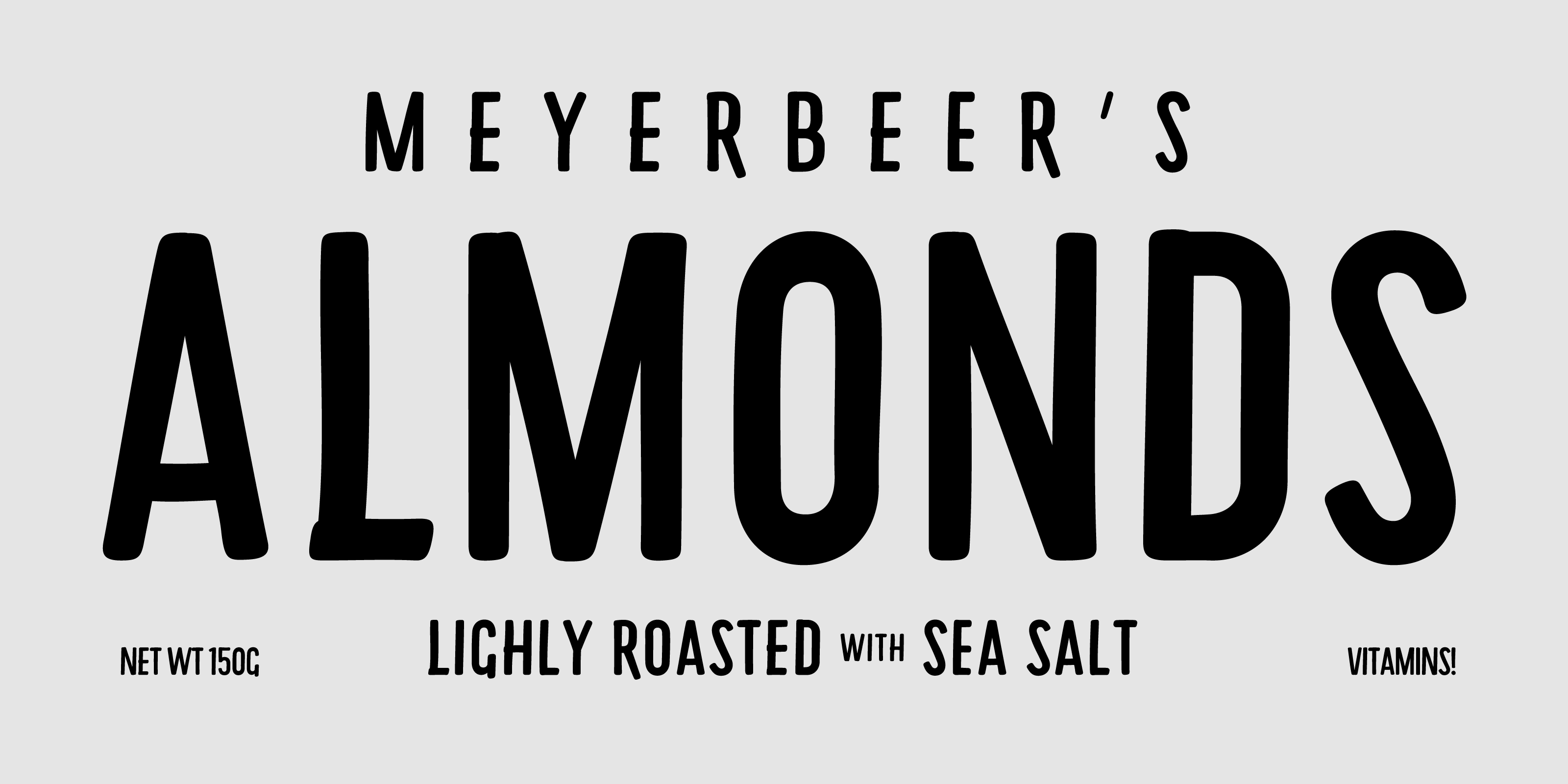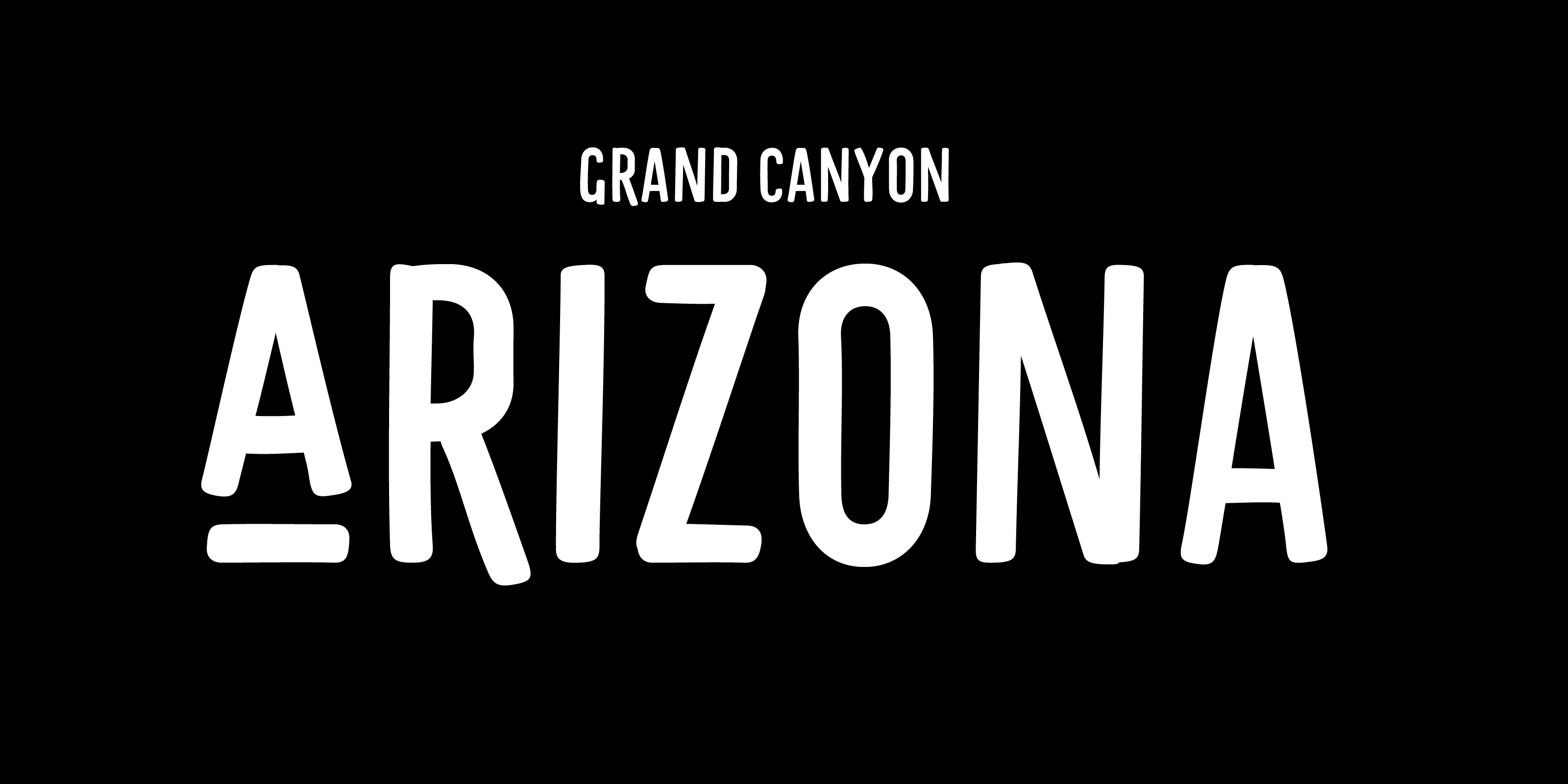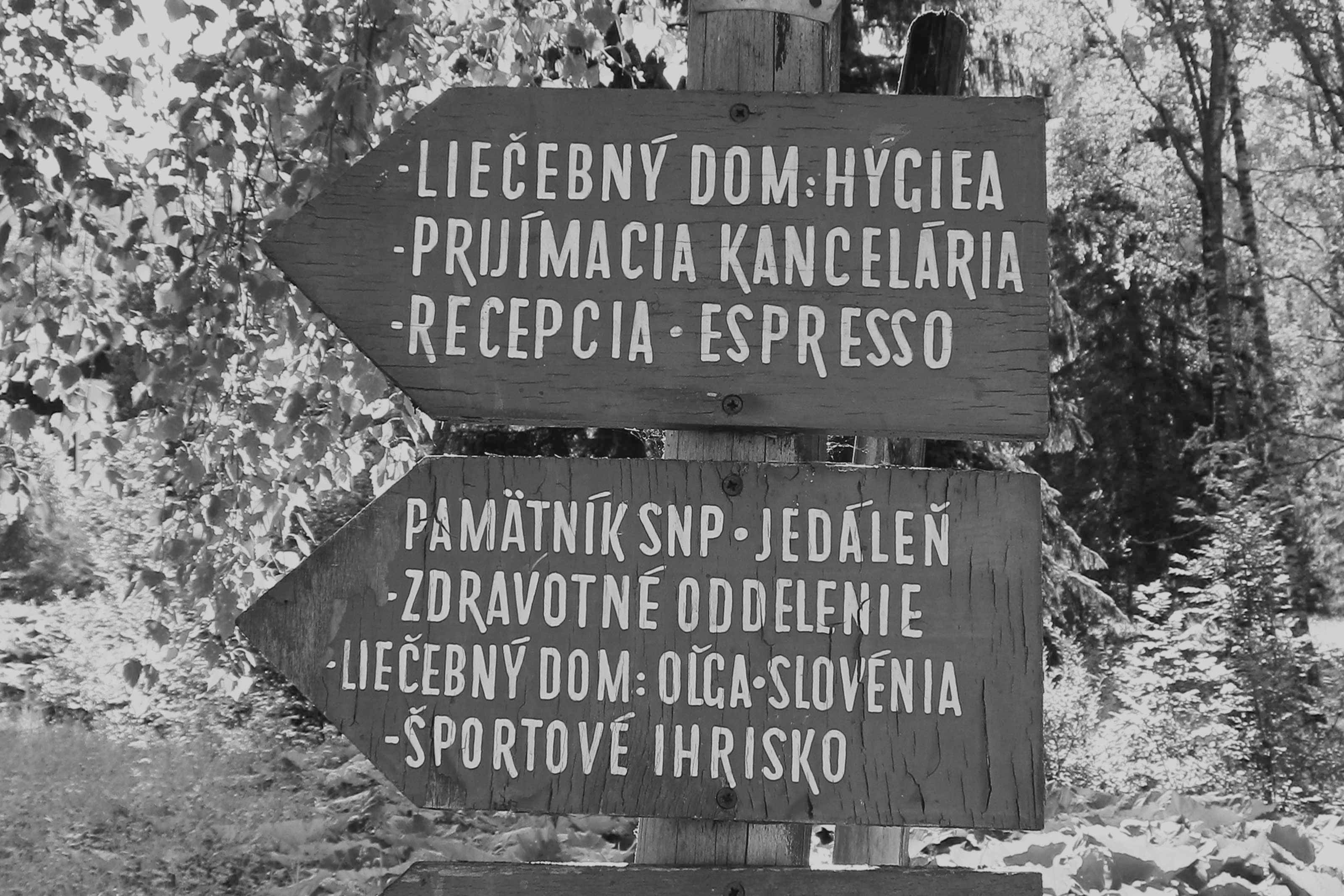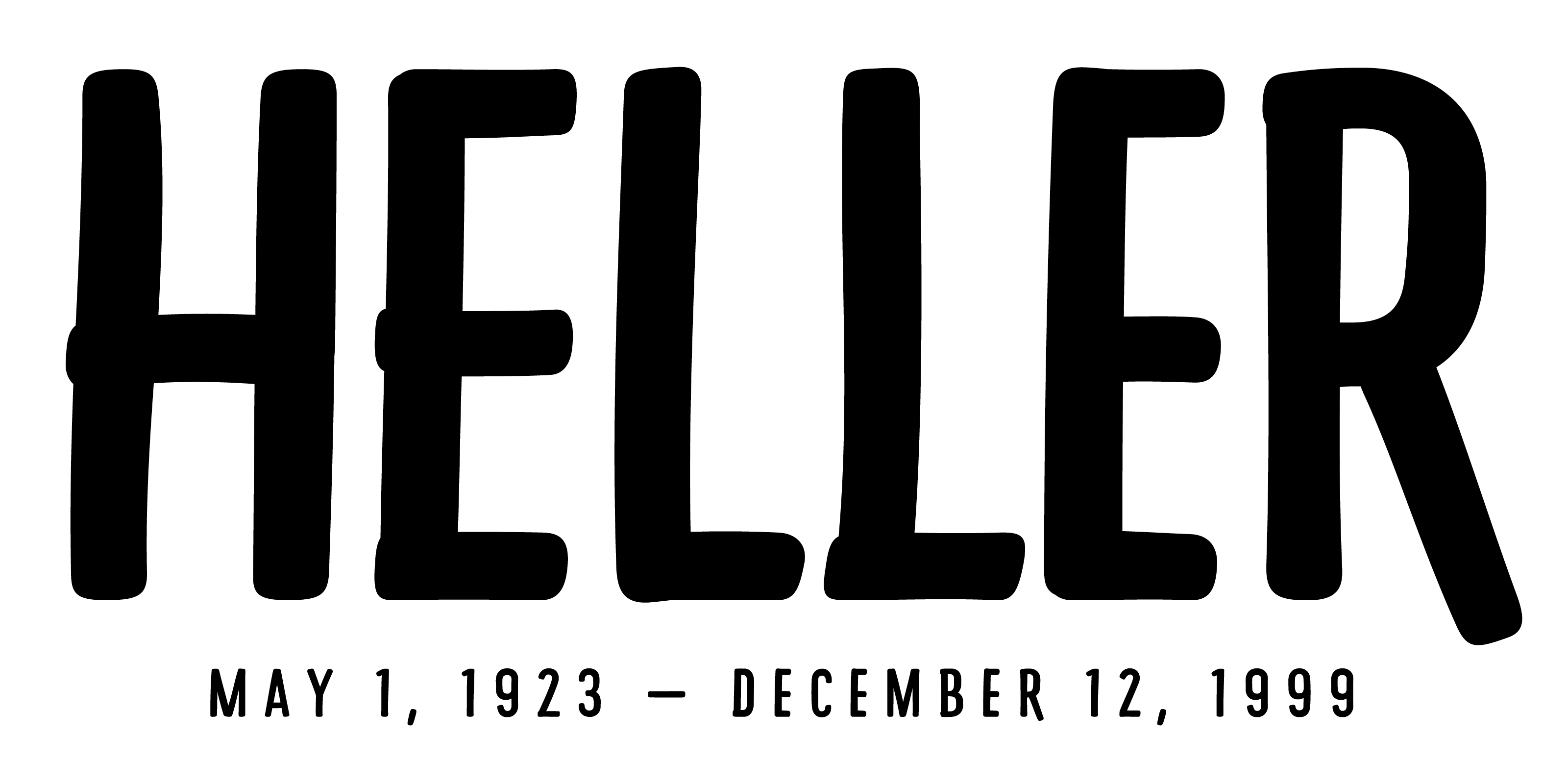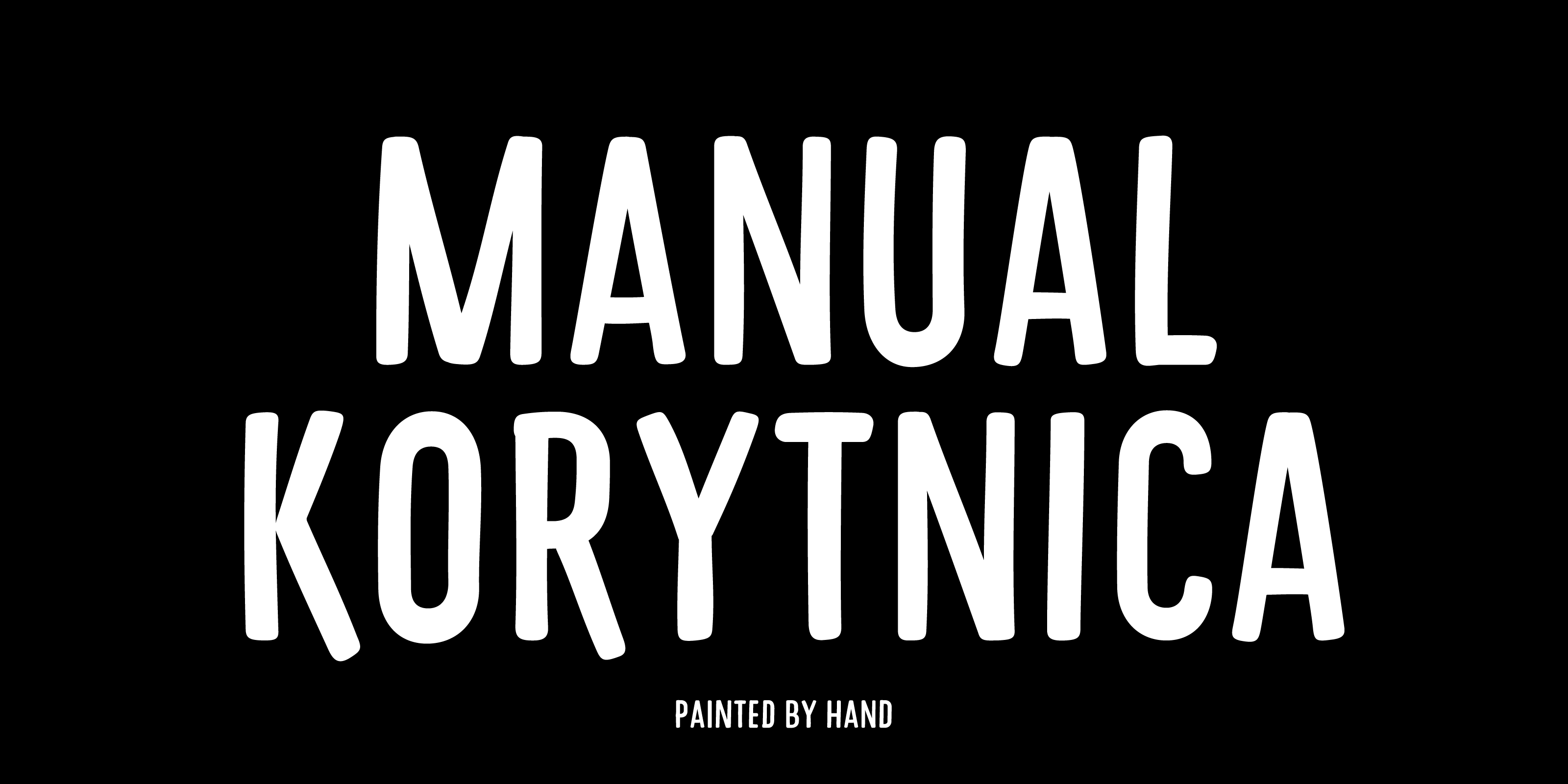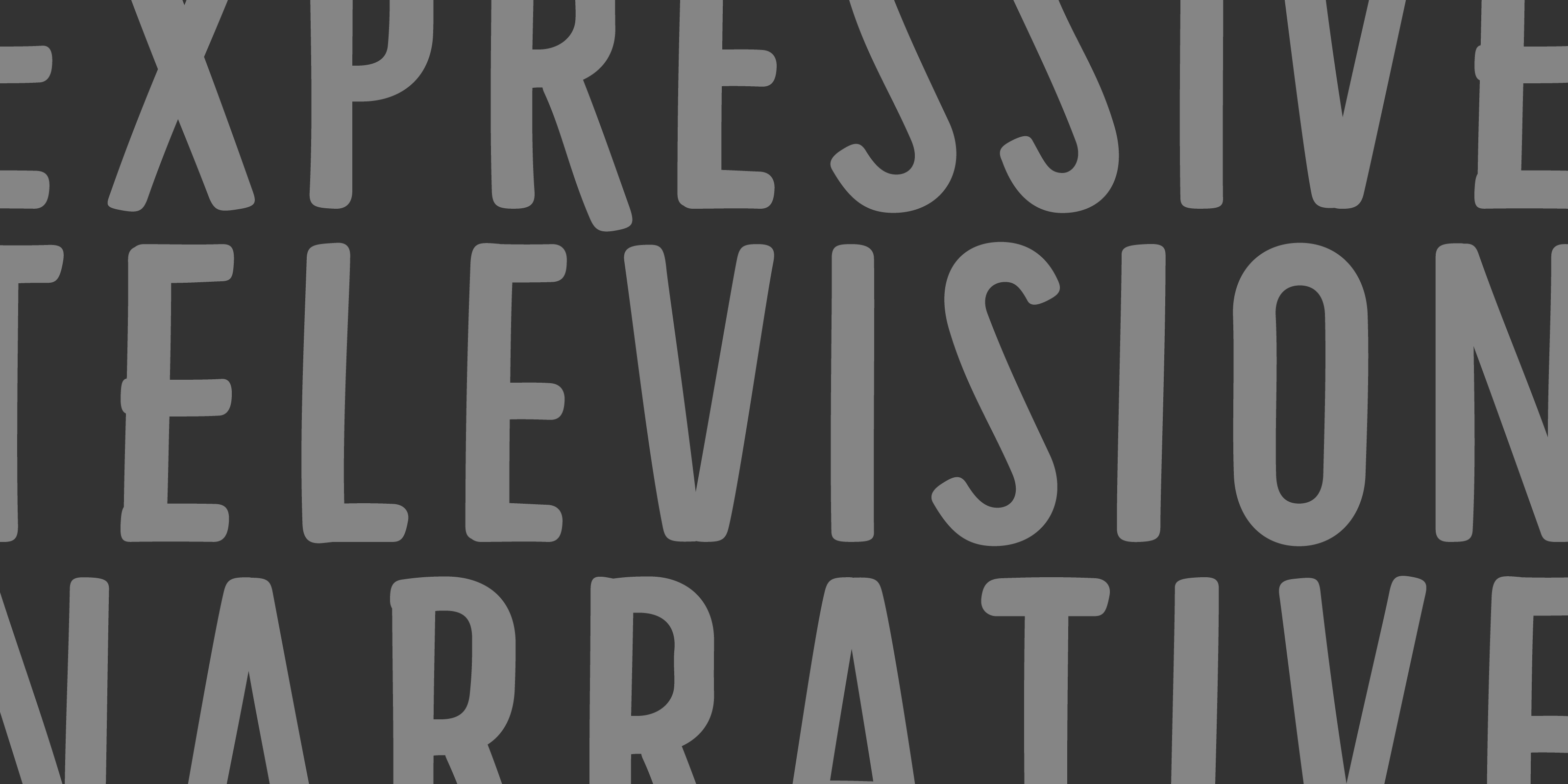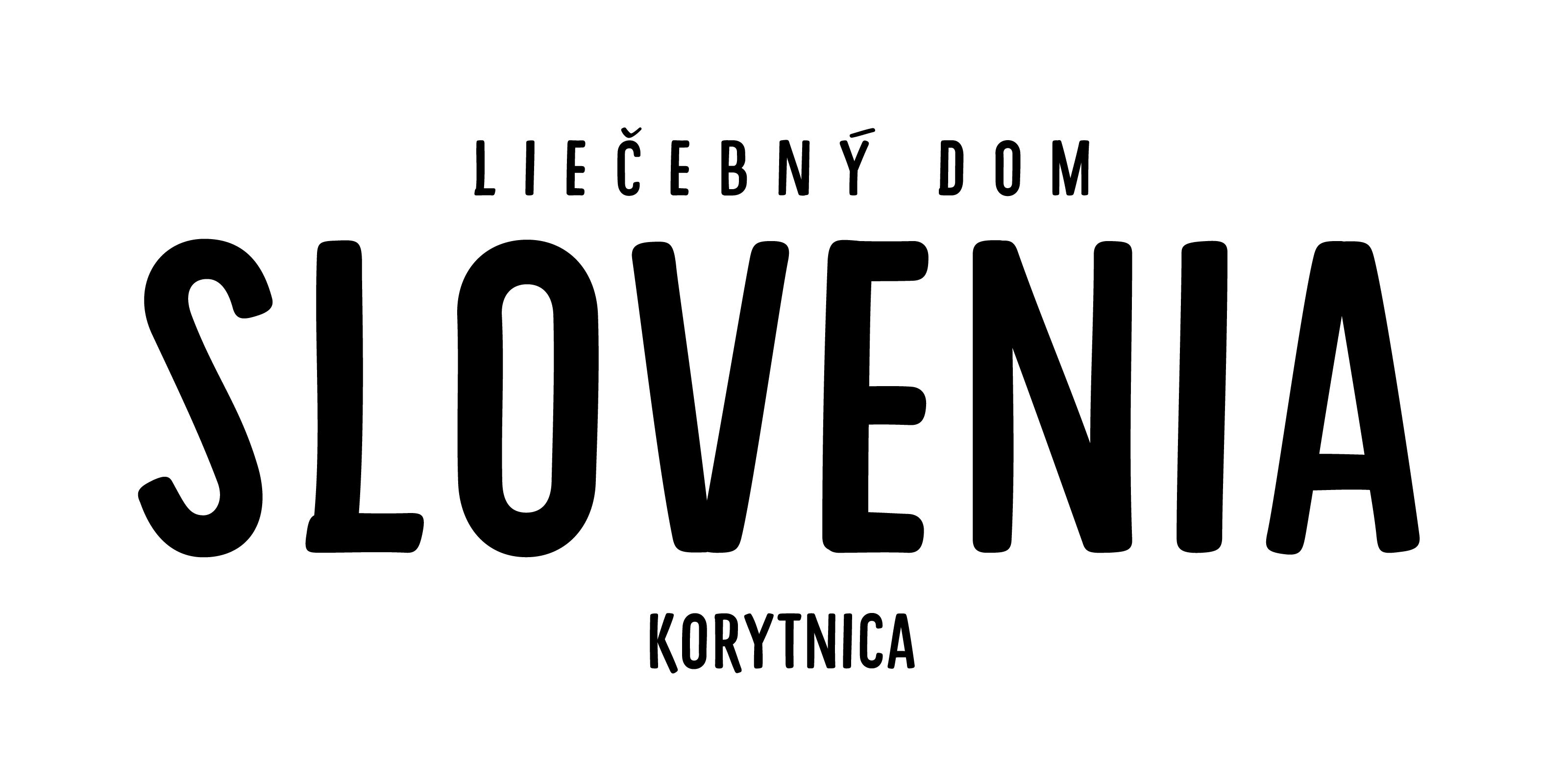
- Manual Korytnica
Handpainted typeface from guideposts from the abandoned Korytnica spa.
Manual Korytnica is a caps-only, organic, utilitarian handwritten typeface with soft terminals primarily intended for display use consisting of 1 style, with no contrast and narrow width.
Manual Korytnica supports Basic Latin and Extended Latin and covers over 100 languages. With total of 386 glyphs, it includes the default set of proportional lining figures. Additional features like standard ligatures and ordinals allow for further customization and versatility.
Manual Korytnica typeface is a digitization of the handpainted type from the green guideposts in the abandoned spa in Korytnica, Slovakia.
Although historically clearly based on the same construction principles as Manual Grotesk, this typeface features a number of original details – a nice example of author’s modification of the original model to their own style.
Every glyph of the digitized font exists in two variants that rotate automatically and mimic the hand-painted effect.